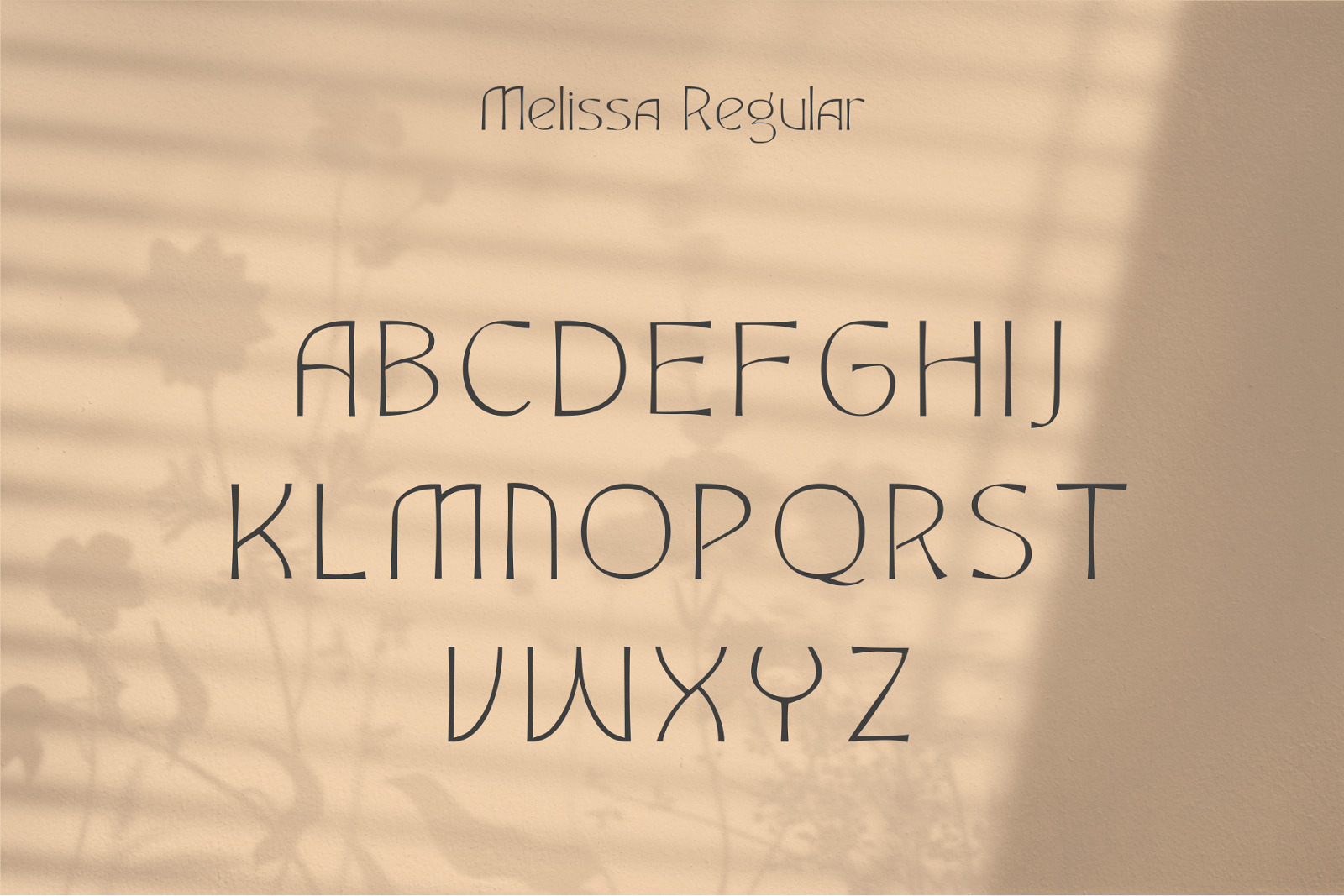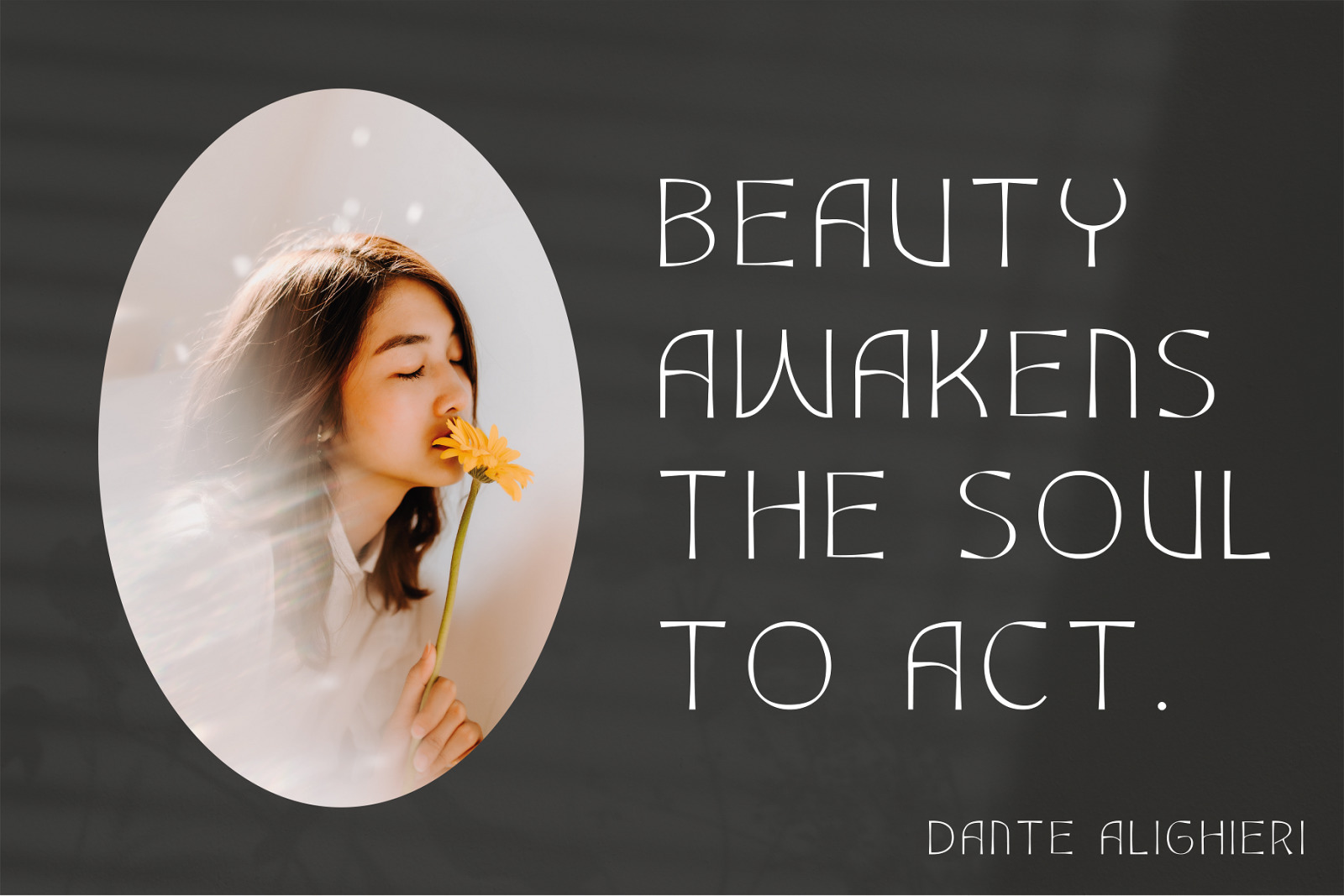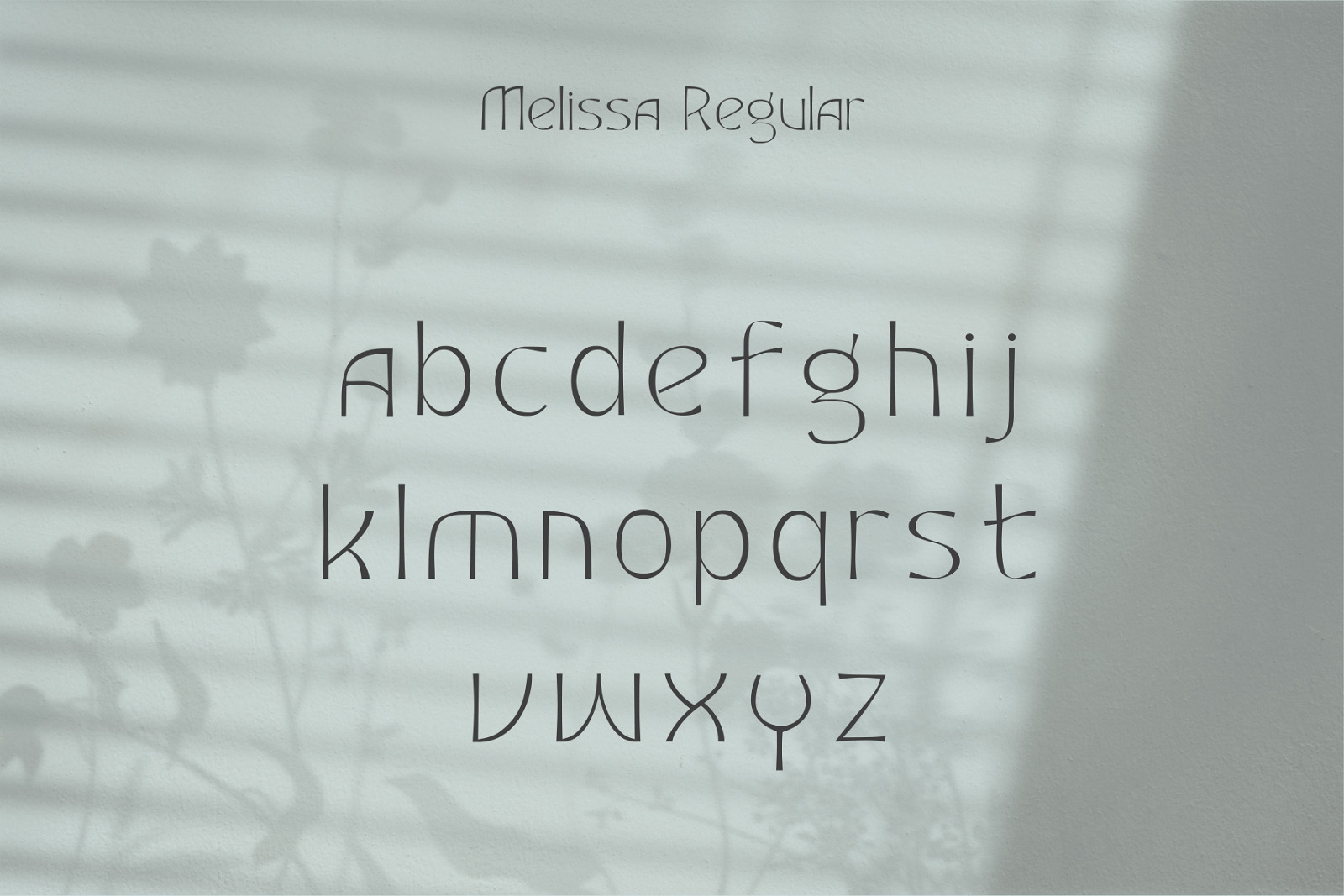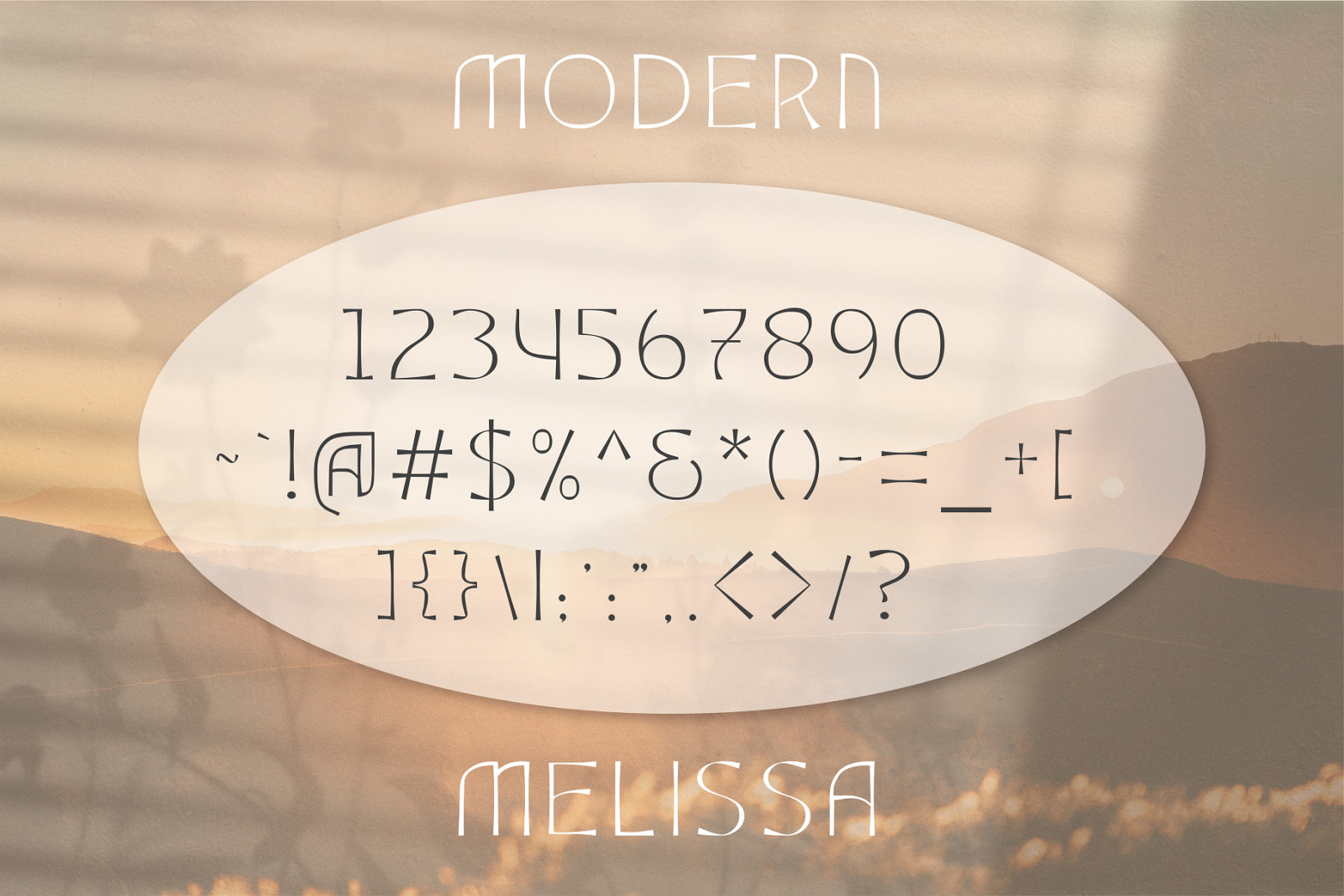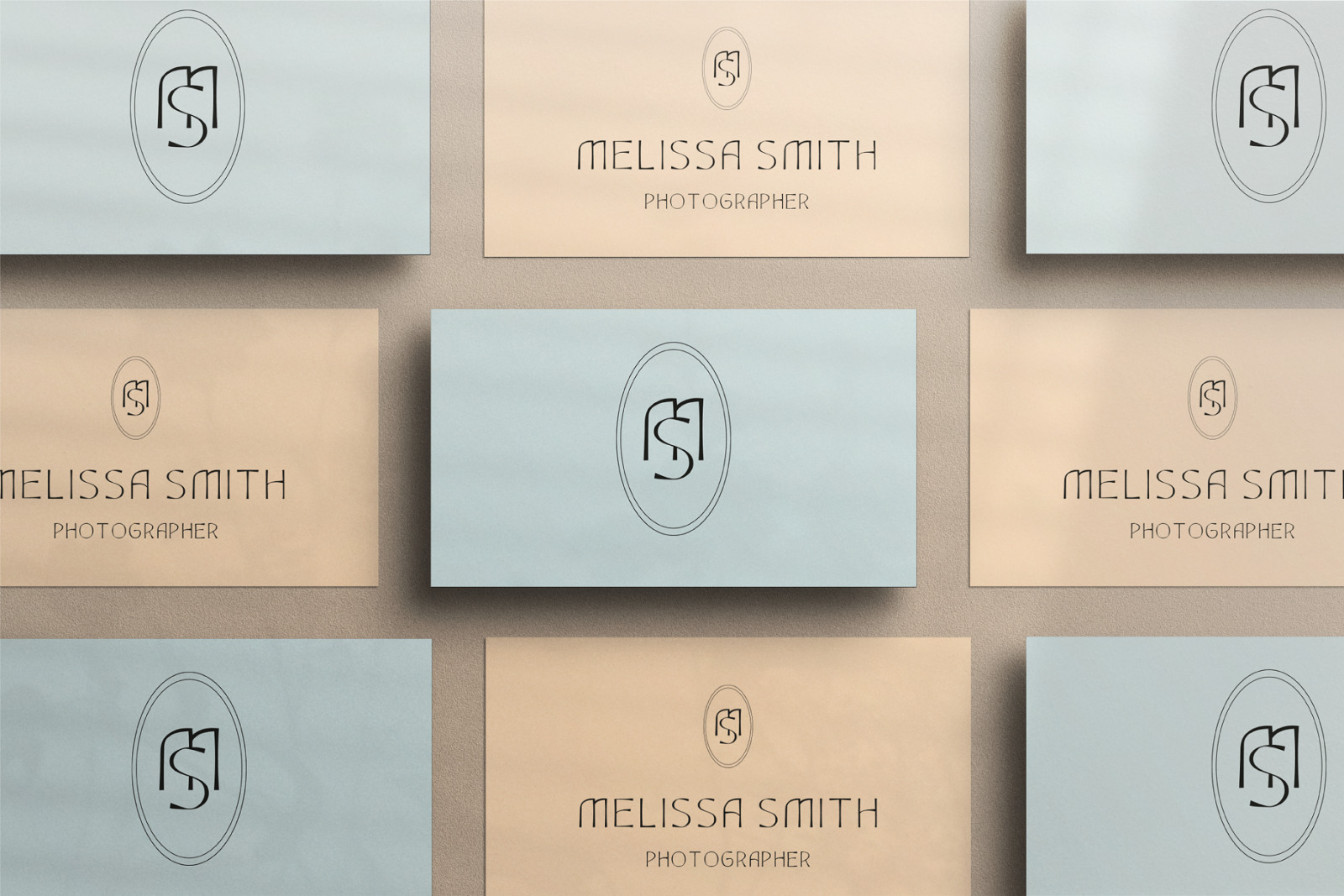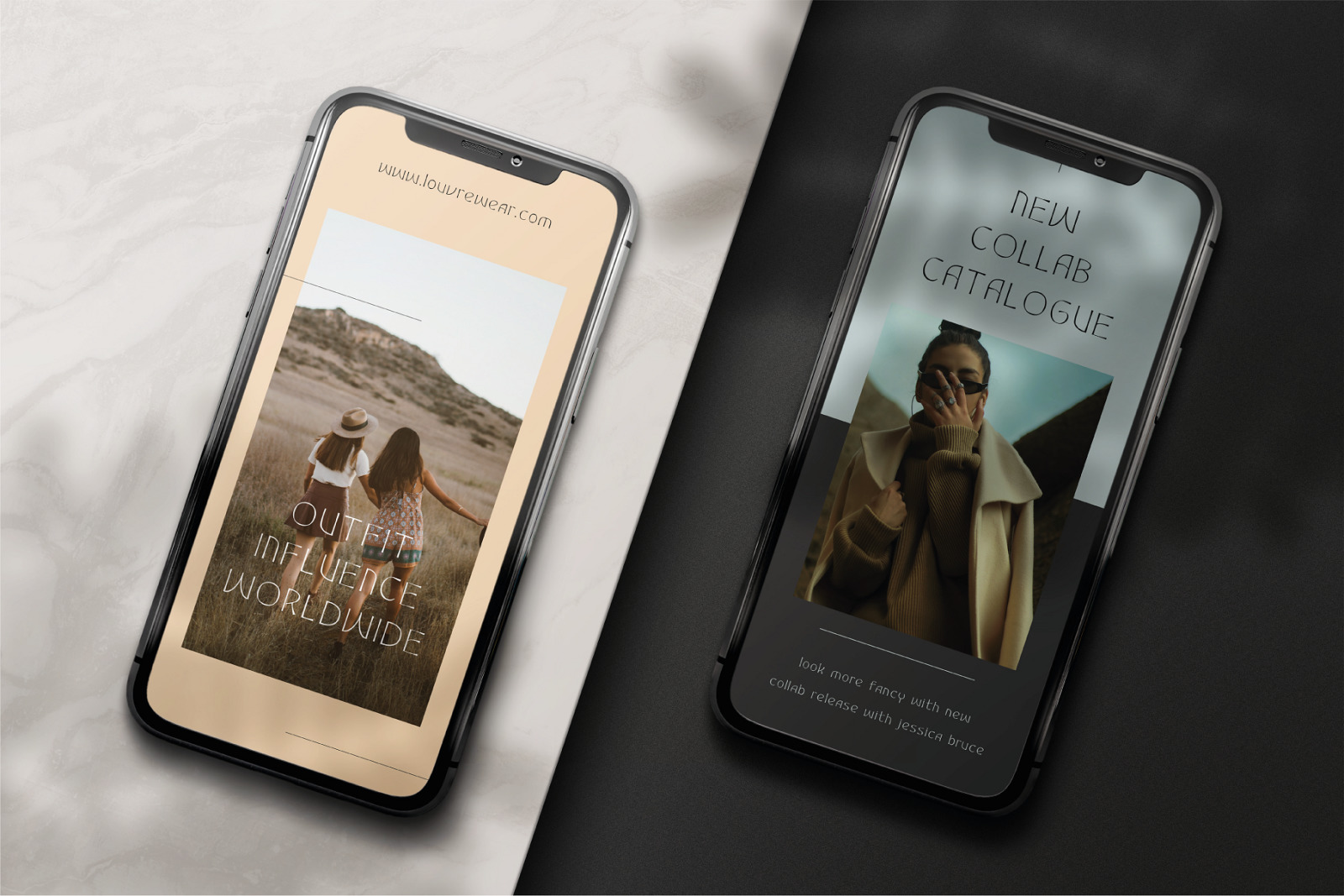
Melissa - Sophisticated Typeface
Melissa is an elegant and feminine typeface that exudes modern sophistication and refined style. Its graceful curves and clean lines are perfect for creating designs that are both luxurious and inviting, making it an ideal choice for use in beauty, cosmetics, fashion, web design, and more.
Each letter is crafted with care, adding a touch of handcrafted artistry to your projects. It's as if each letter is a brush stroke, creating a picture of effortless beauty and timeless grace. With Melissa, you can create designs that are as unforgettable and enchanting.